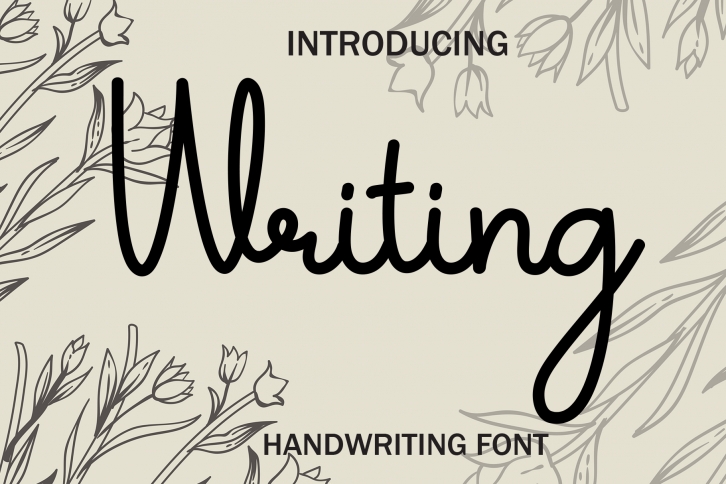
Writing is a sweet and beautiful handwritten font. Featuring characters that dance along the baseline, this font will add a luxury spark to any design project you wish to create!